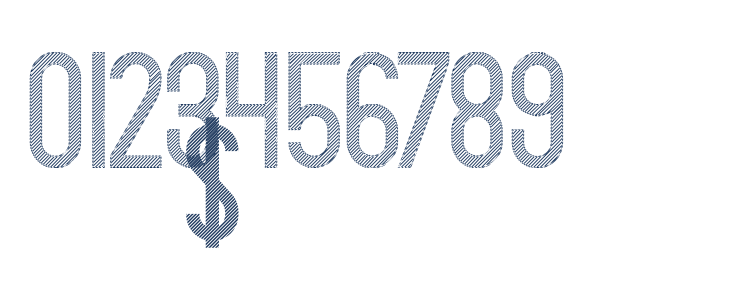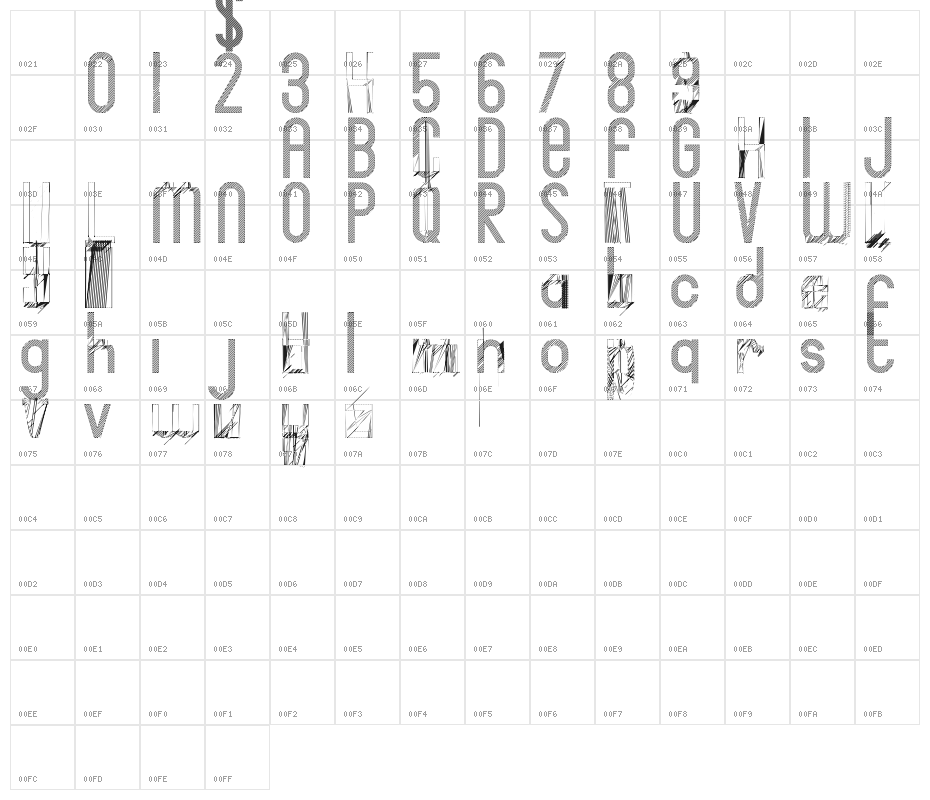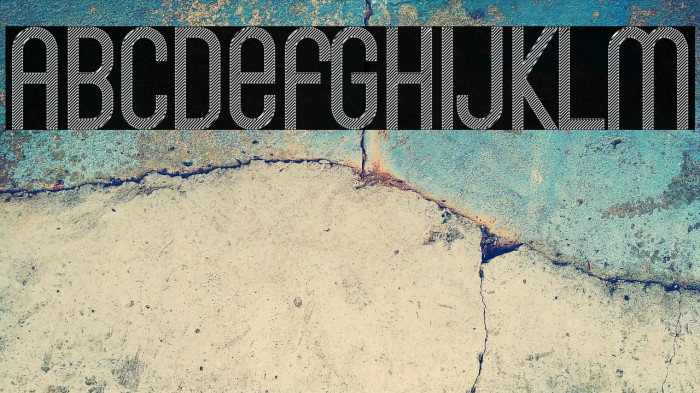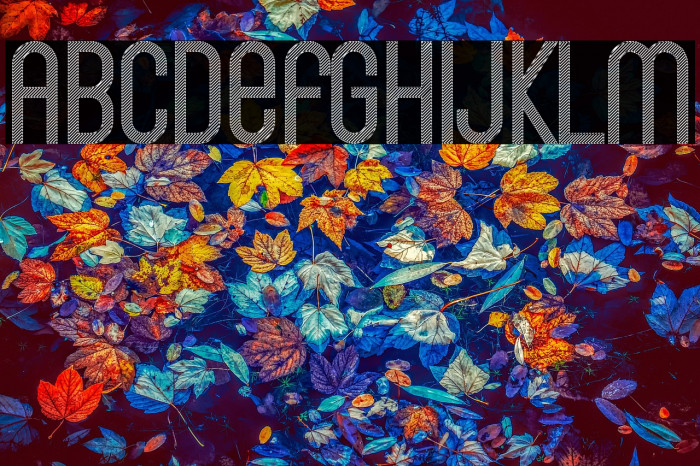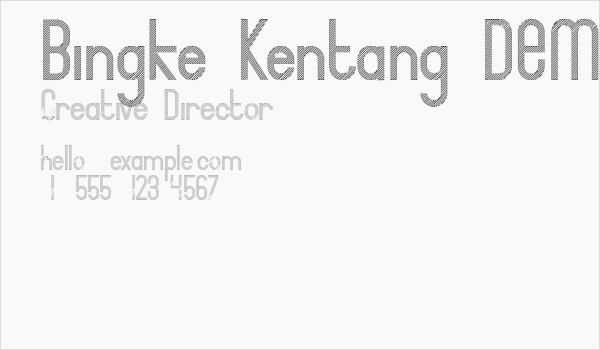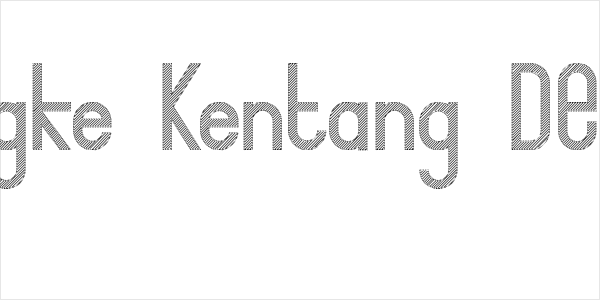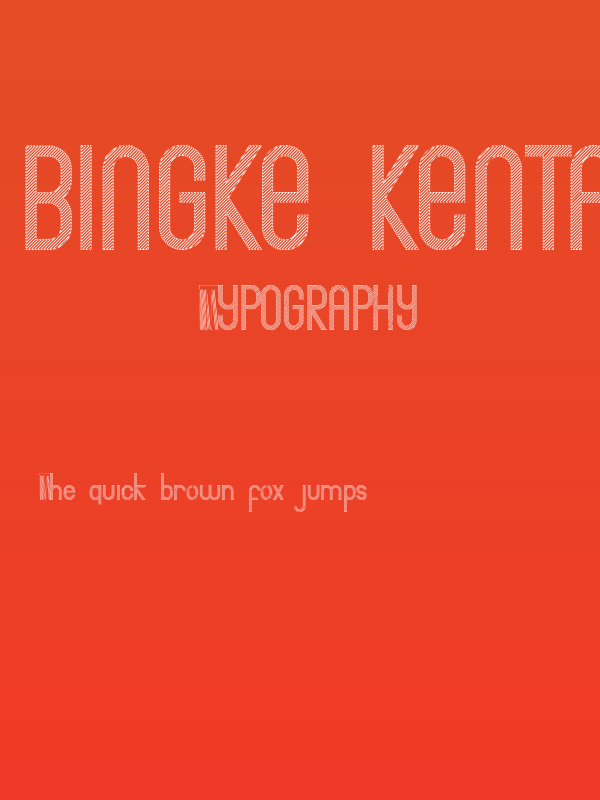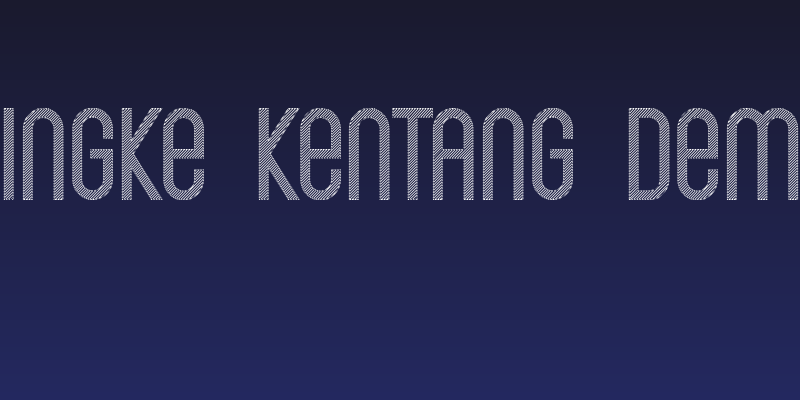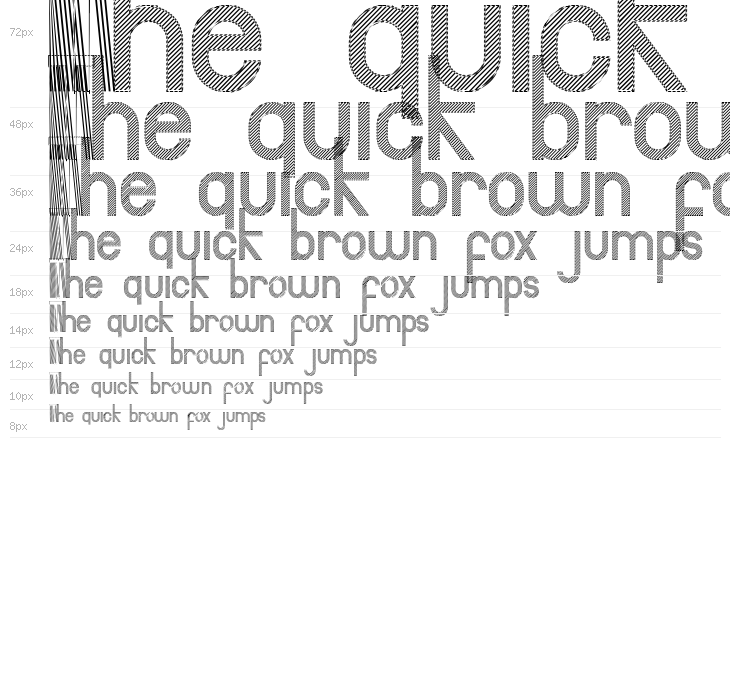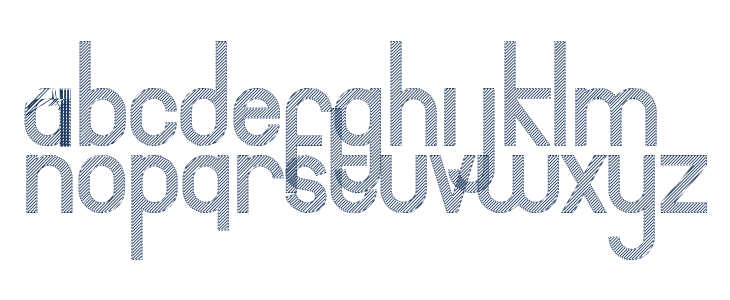
Bingke Kentang DEMO Font
Bingke Kentang DEMO Description
This font features a unique diagonal line pattern within each character, creating a textured and dynamic appearance. The uppercase and lowercase letters are designed with a consistent width, giving a uniform look across the alphabet. The numbers and special characters follow the same stylistic pattern, ensuring cohesion throughout. The font's distinct style makes it stand out, with a modern and slightly industrial feel. Its geometric structure and clean lines make it suitable for various design applications where a bold statement is desired.
| Proposed Projects | Ideal for branding, posters, and headlines where a bold and modern aesthetic is needed. |